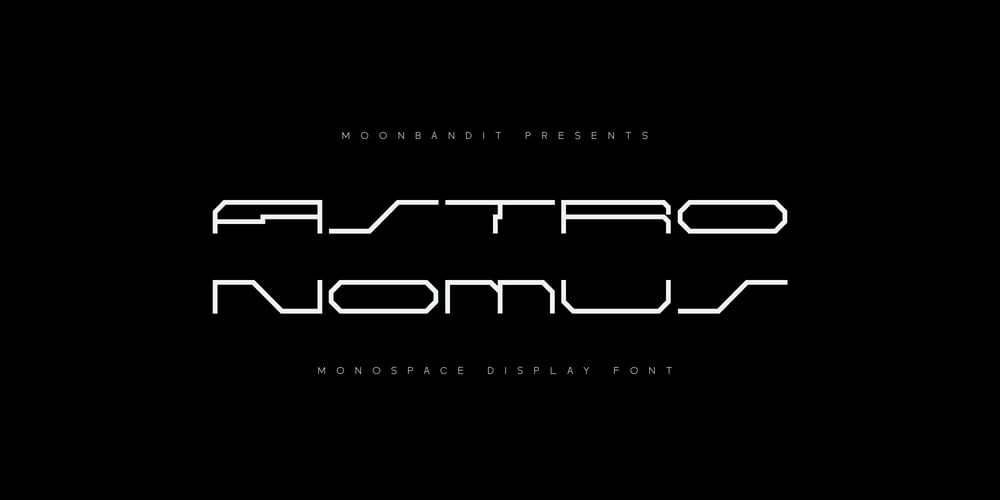
MBF Astronomus
MBF Astronomus font
MBF Astronomus Font Family was designed by Bramaji Dipa Manggala and published by Moonbandit. MBF Astronomus contains 1 styles and family package options. Astronomus is an experimental monospace futuristic scifi font with extra wide treatment. If you seek an extreme out of this world feel, this is the perfect font for you. Use this typeface for logo, title, headline, and even decorative design element.